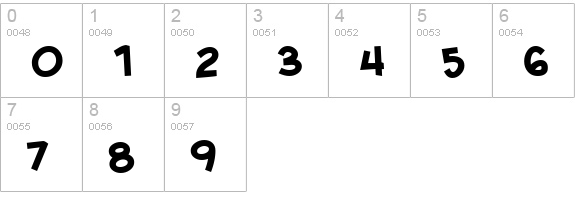
CreativeBlock BB Bold Font Details
CreativeBlock BB Bold is a strong, high-contrast variant in the CreativeBlock typeface family \xE2\x80\x94 well suited to headlines, attention-grabbing titles, and strong calls-to-action.
CreativeBlock BB Bold font is a versatile and eye-catching typeface that is perfect for making a bold statement in your design projects. With its strong and modern appearance, this font is sure to attract attention and convey a sense of creativity and innovation. Whether you're working on a branding project, poster design, or any other creative endeavor, CreativeBlock BB Bold font will help your text stand out and make a lasting impression. The best part? CreativeBlock BB Bold font is available for free download at FontsMarket.com, making it easily accessible to all designers and creatives looking to add a touch of uniqueness to their work. Don't miss out on this fantastic opportunity to enhance your projects with a stylish and impactful font that is both professional and free to use. Download CreativeBlock BB Bold font today and let your creativity shine!